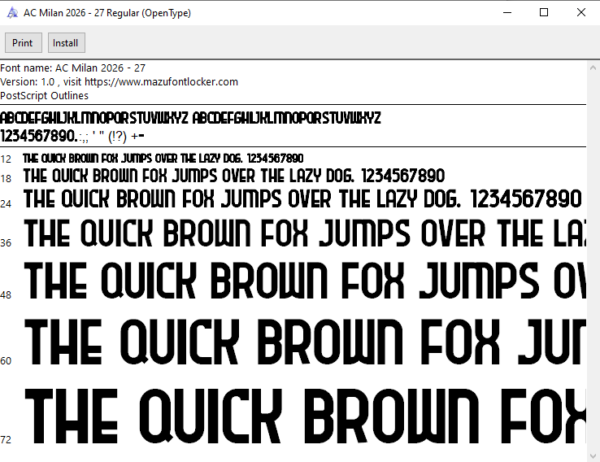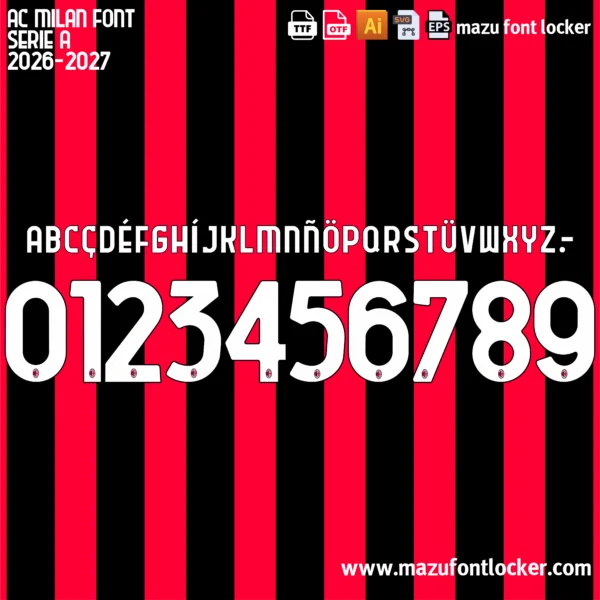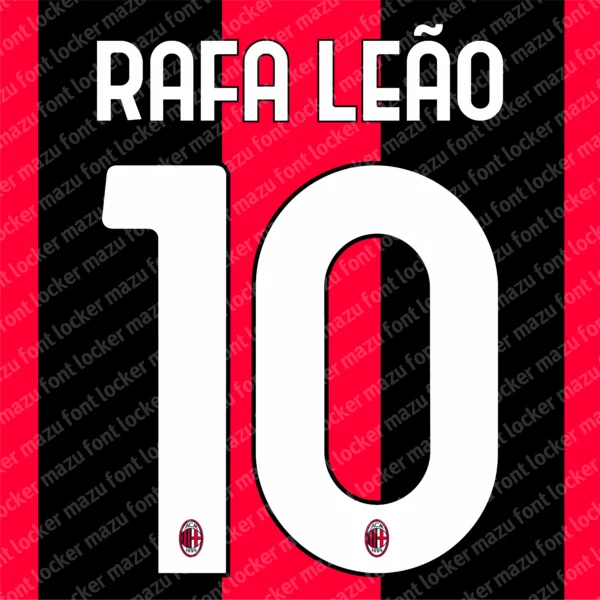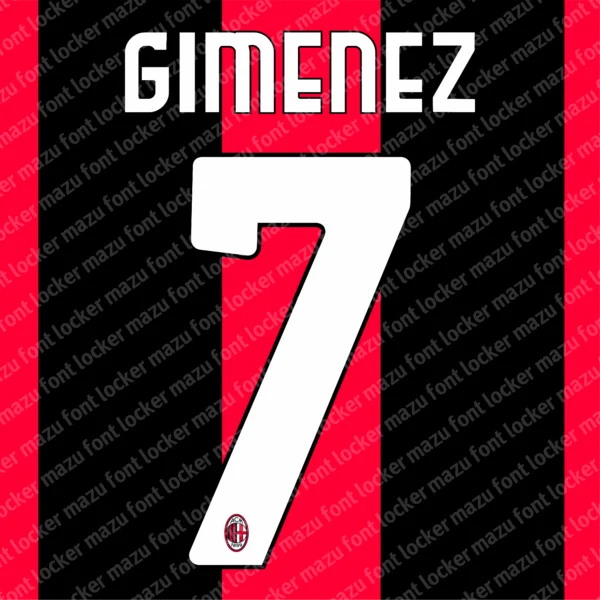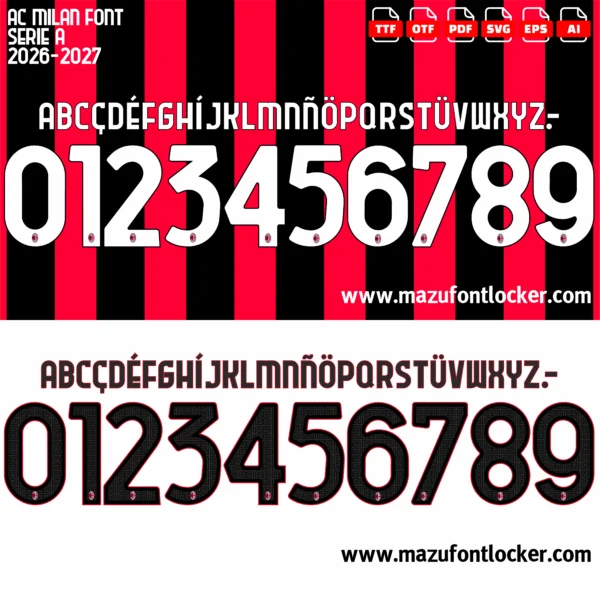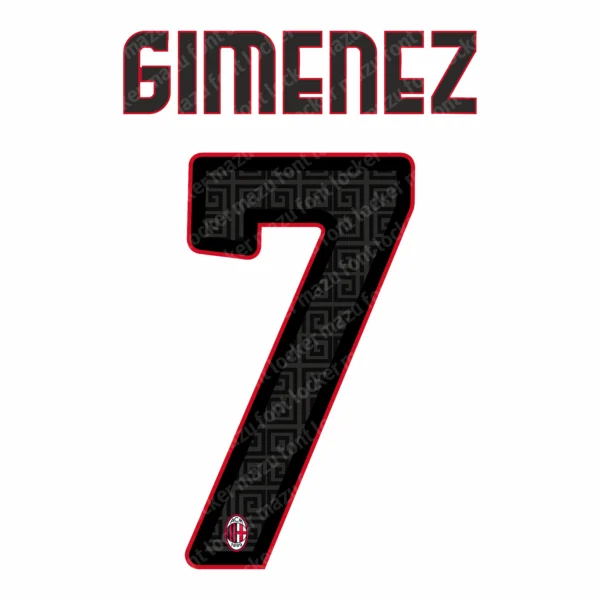
AC Milan 2026-2027 Font Vector – Unstoppable Legendary Rossoneri Champion
Download the AC Milan 2026-2027 Font Vector (AI, EPS, SVG, PDF, OTF, TTF) and powerfully recreate the bold, sharp, and majestic matchday lettering of the Rossoneri in the electric 2026-2027 season. This font perfectly captures the intense and commanding typography that radiates the pure red-and-black passion, delivering legendary authenticity, Diavolo fighting spirit, and the roaring San Siro energy for premium jersey mockups and football designs.
AC Milan Font Kit 2026/2027 – Authentic Serie A Typeface
The AC Milan 2026-2027 Font is a premium typeface that accurately recreates the official match lettering worn by AC Milan during the 2026/2027 Serie A season. This high-quality font kit captures the bold, elegant, and modern typography that defines the club’s new era of ambition and style.
Designed for professional designers and passionate AC Milan fans, the AC Milan 2026-2027 Font delivers perfect authenticity for creating future jersey mockups, fan merchandise, matchday posters, social media graphics, and much more. It perfectly complements the club’s iconic red-and-black kits from this exciting period.
Why Choose AC Milan 2026-2027 Font
This font stands out because of its sharp details and strong presence. Every letter and number is crafted to match the exact style used on the players’ shirts during the 2026-2027 season. Whether you are making modern shirt templates or forward-looking football content, the AC Milan 2026-2027 Font gives your designs that authentic Serie A look from the mid-2020s.
The letterforms in the AC Milan 2026-2027 Font are tall, bold, and highly readable. The strokes have a balanced weight that looks powerful and sophisticated on the back of jerseys while maintaining excellent clarity.
The numerals use solid curves and firm edges, giving them a confident and premium appearance. This design ensures great legibility whether used in large print formats, digital mockups, or dynamic video content.
• Full uppercase A–Z and numbers 0–9 in authentic AC Milan 2026-2027 style
• Special AC Milan logo glyph for accurate shirt number detailing
• Includes the exact logo glyph placement used under player numbers
AC Milan in the 2026/2027 Season